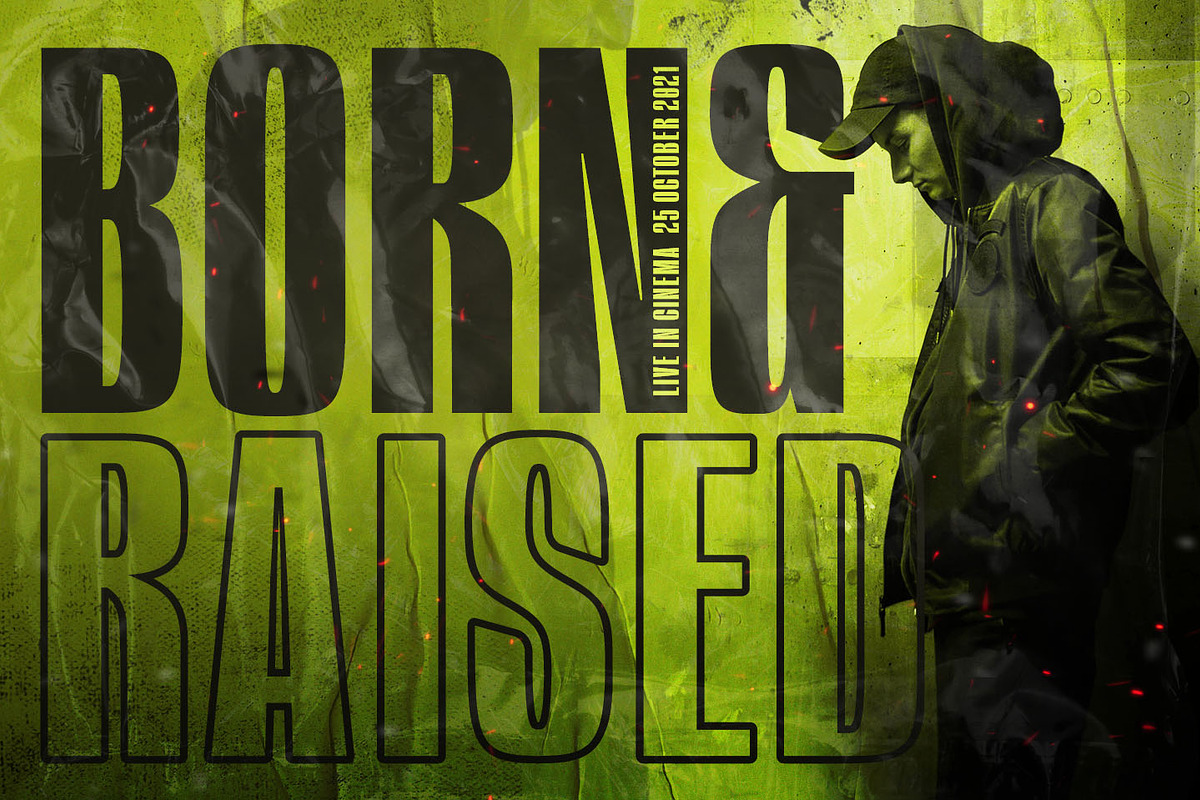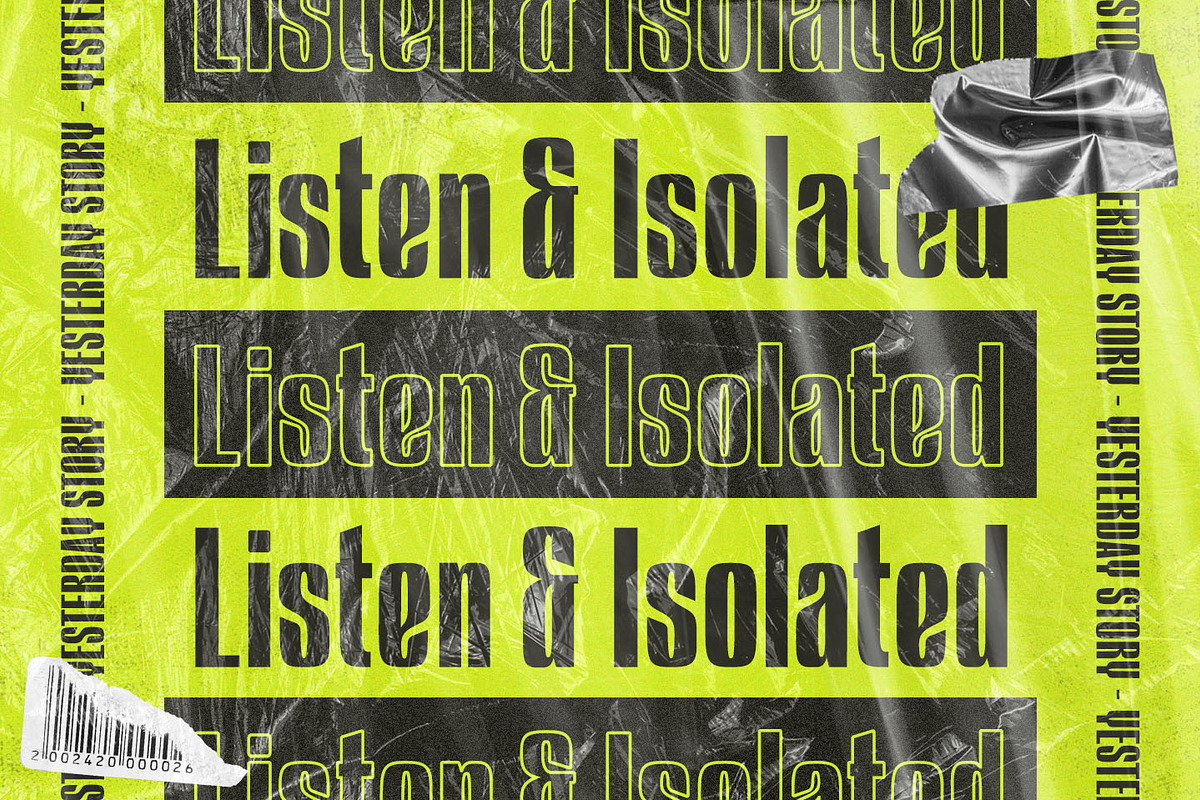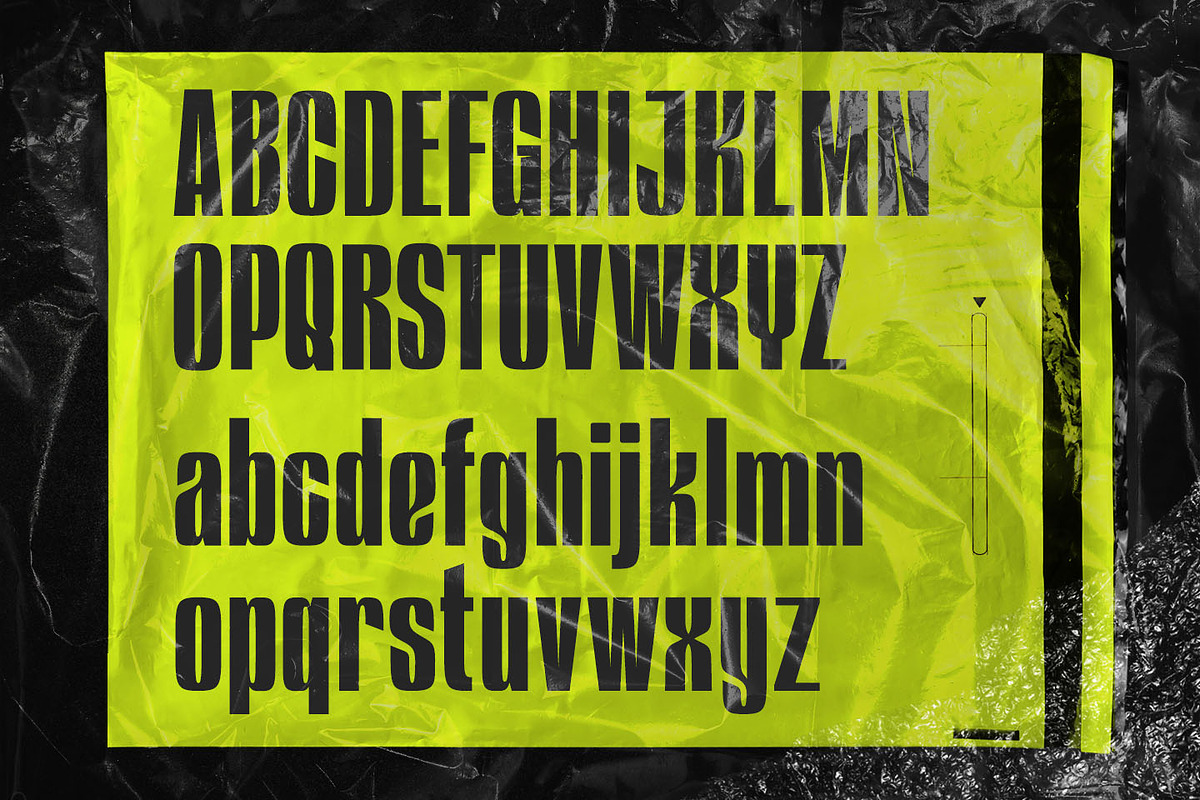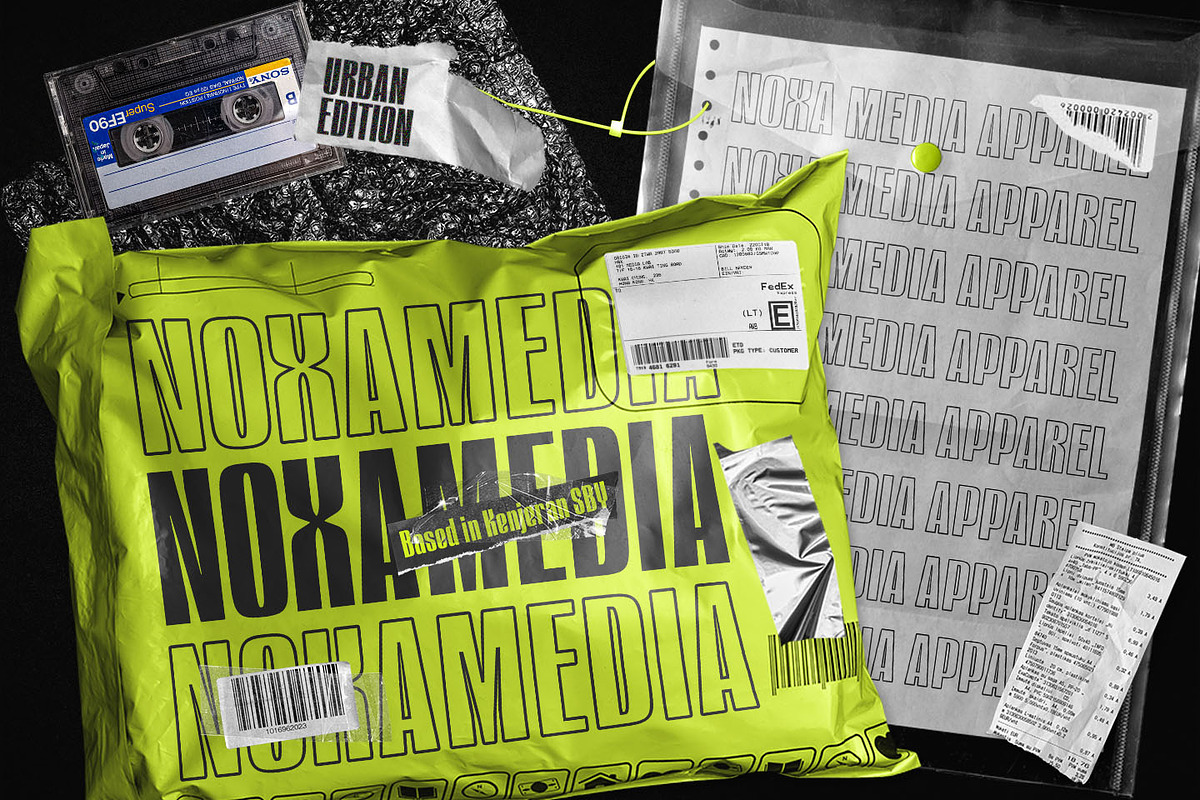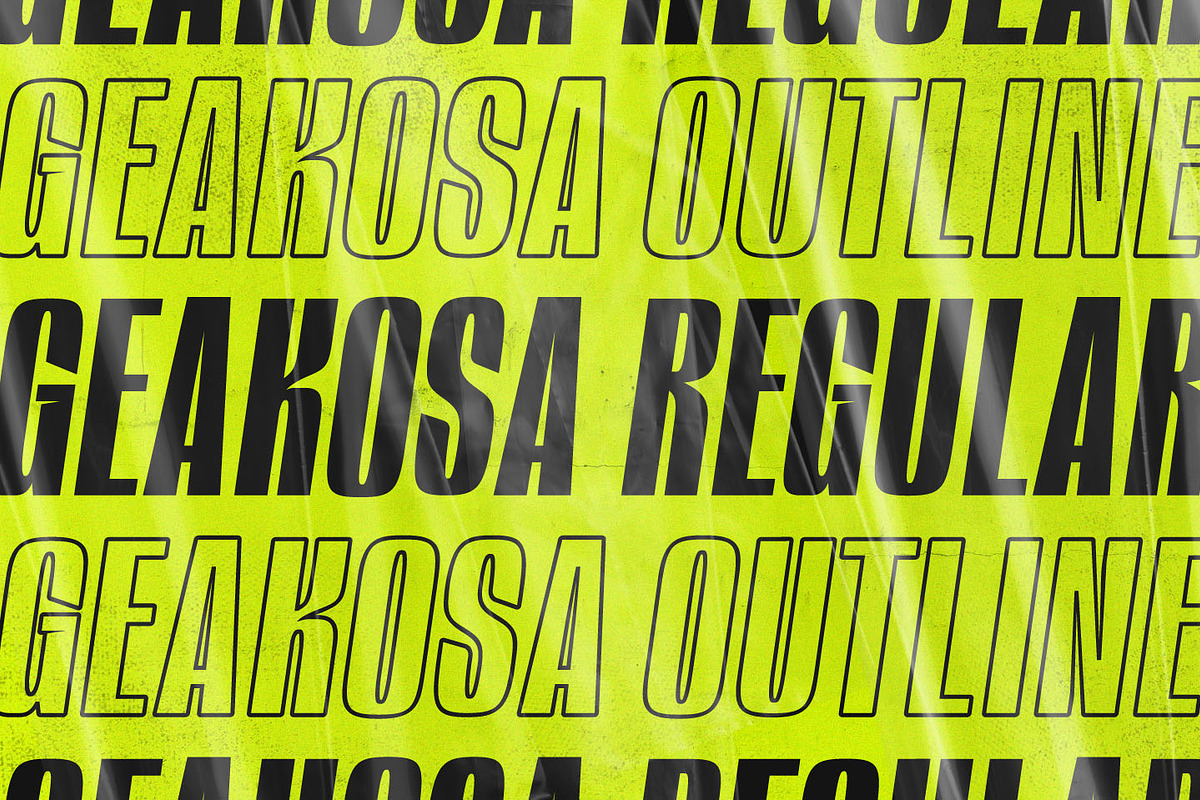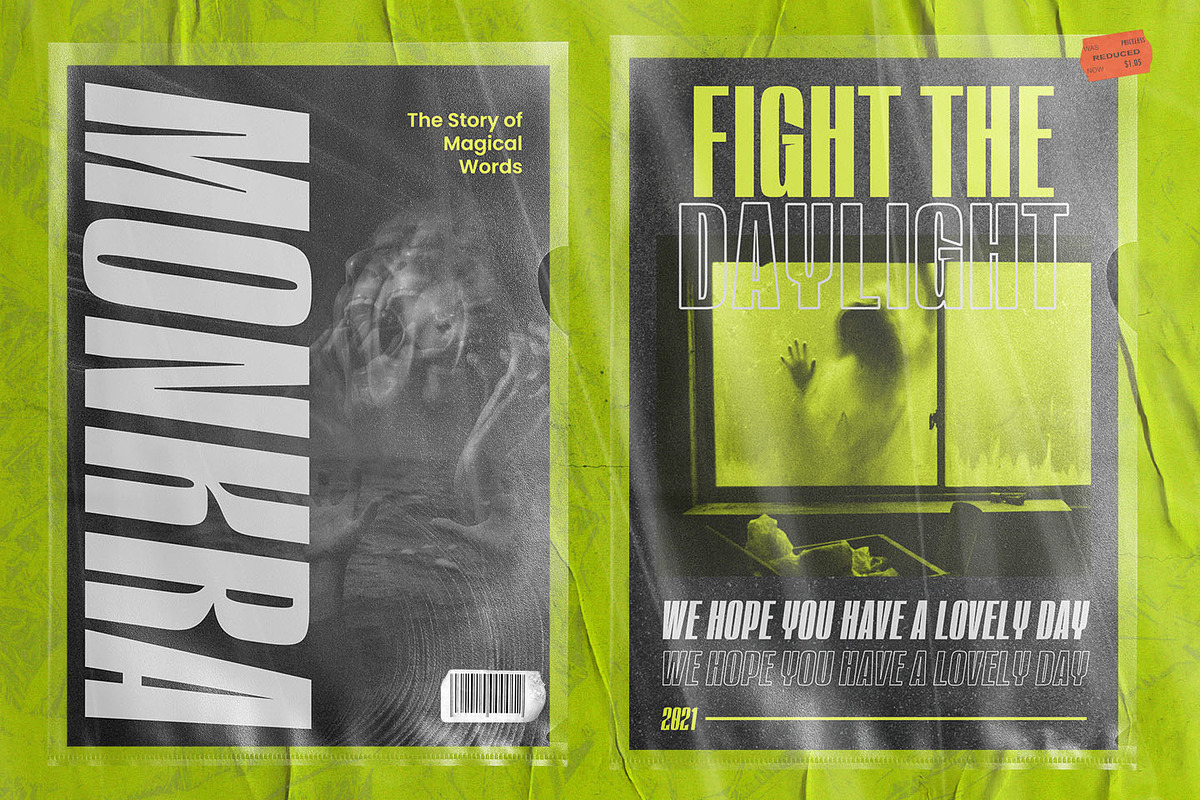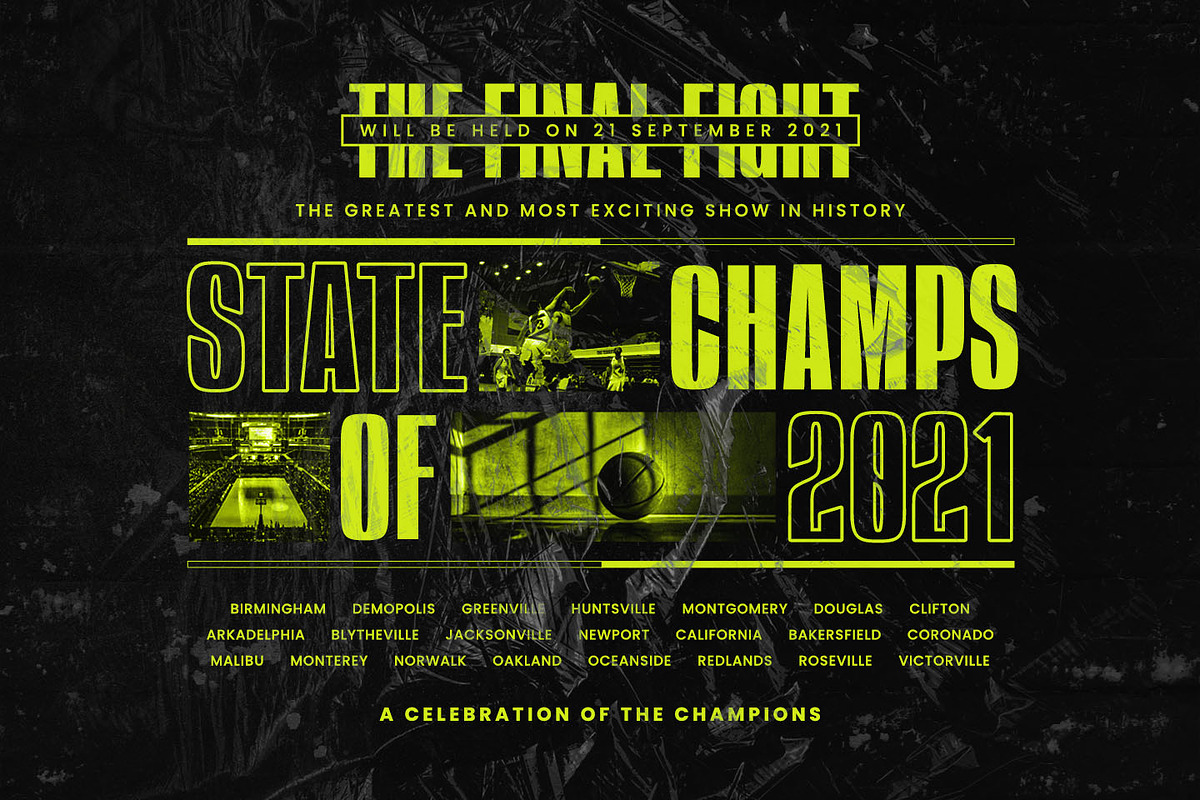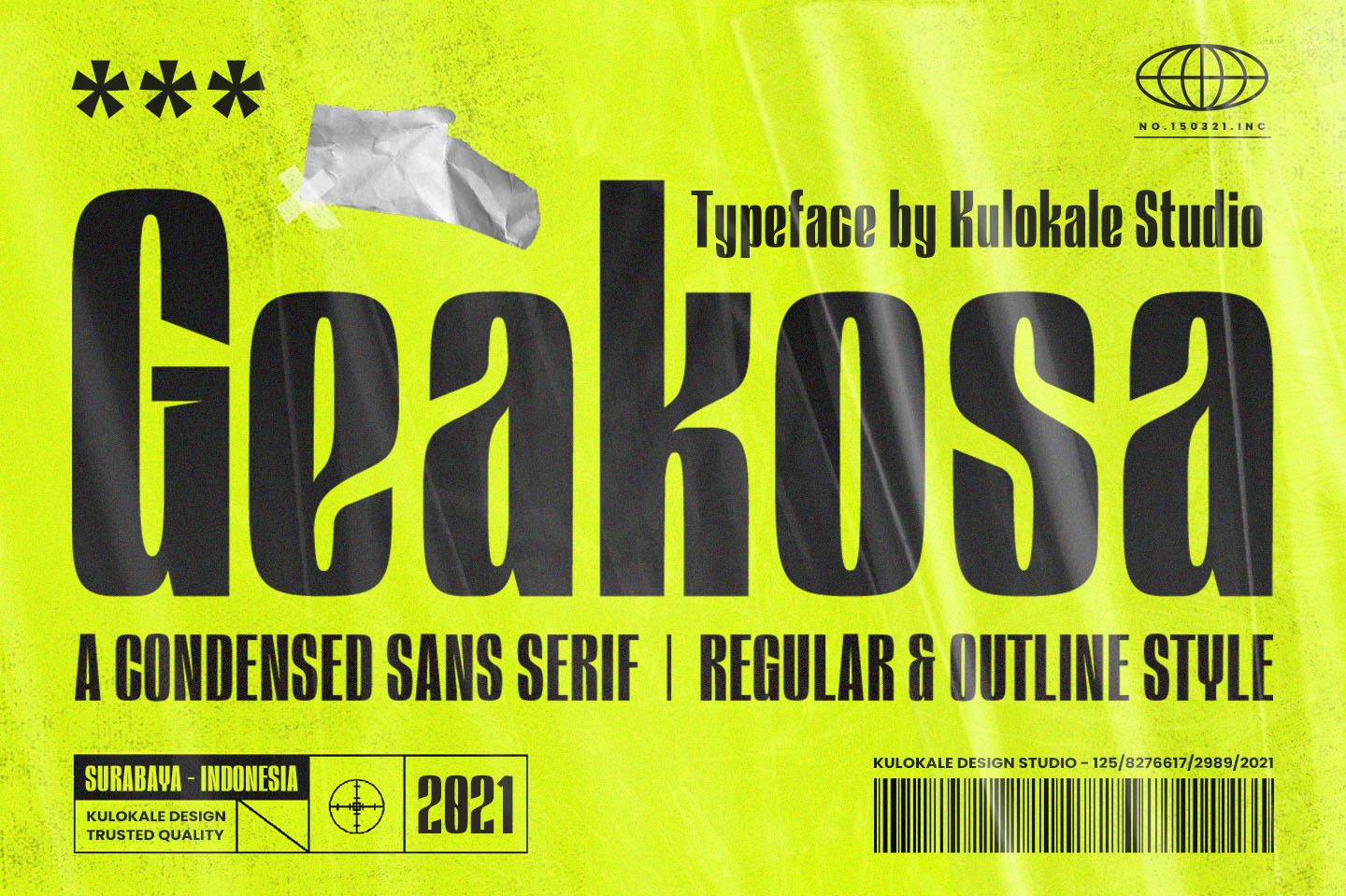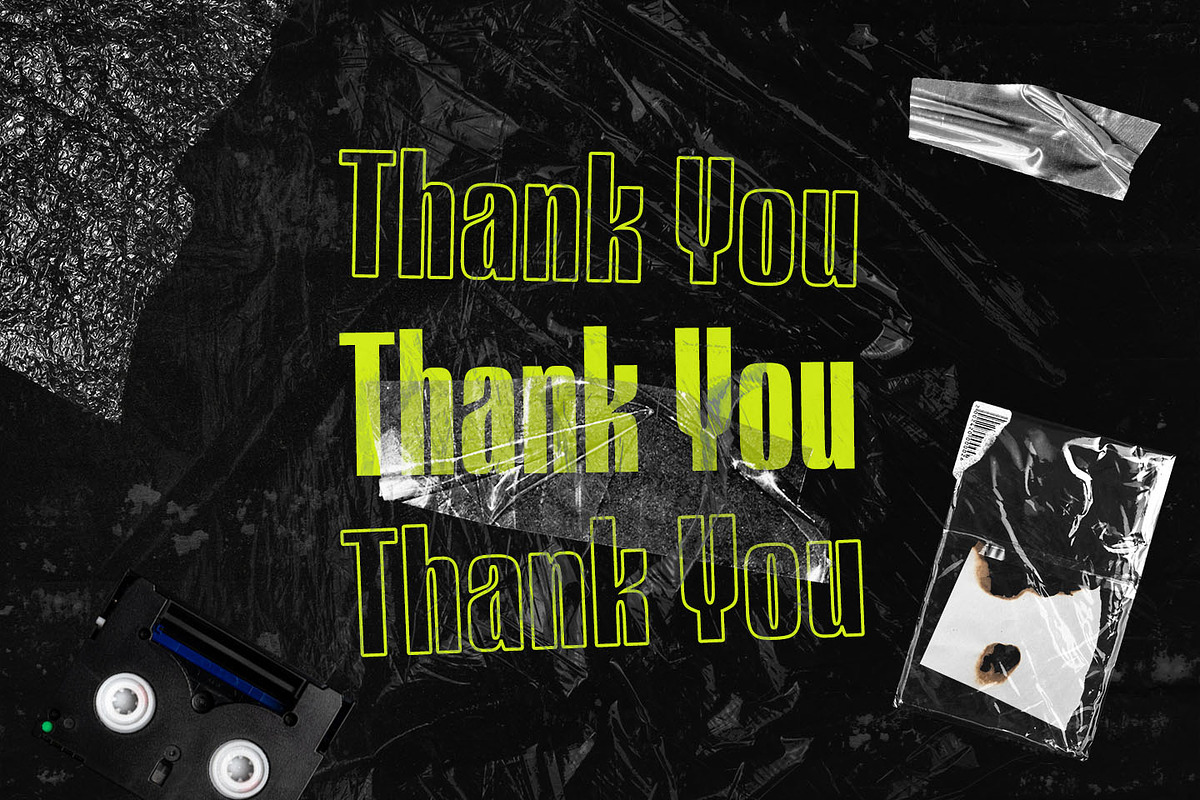
Geakosa Condensed Display Sans Font
Geakosa is an condensed sans serif display font, and with a style that is very different from the others. This font comes in two styles, Regular and Outline Version.
Geakosa is well-suited for posters, social media, headlines, magazine titles, clothing, large print formats - and wherever you want to be seen. Inspired by the style of design that is currently popular, and this is the answer to all the needs of every idea that you will pour in this modern era.